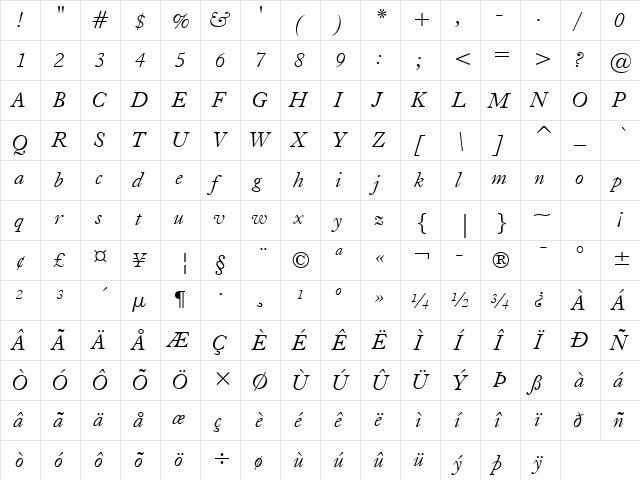
CaslonOldFace BT Italic Font Preview
CaslonOldFace BT Italic
CaslonOldFace BT Italic Font Details
Design Context for CaslonOldFace BT Typeface
CaslonOldFace BT is a composed and adaptable typeface that performs quietly and consistently across a wide range of design contexts. The dynamic lean of this cut emphasises speed and emphasis in any layout.
Pro Tip: Use CaslonOldFace BT for emphasis, pull quotes, and subheadings where its slanted energy can add rhythm to the layout.